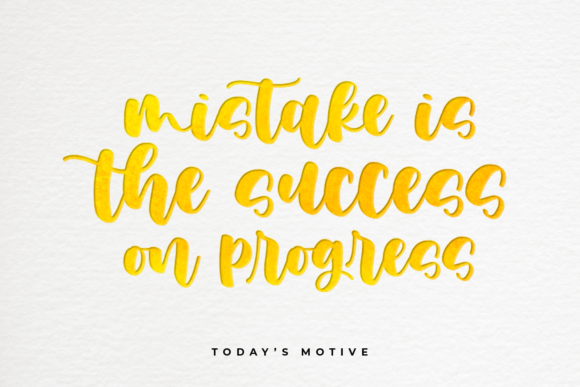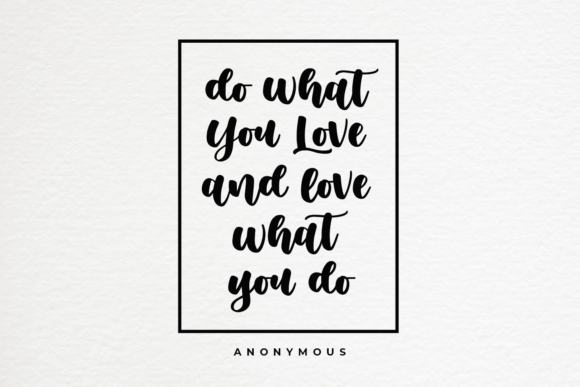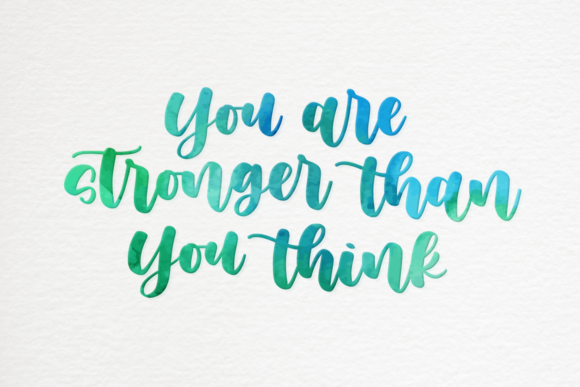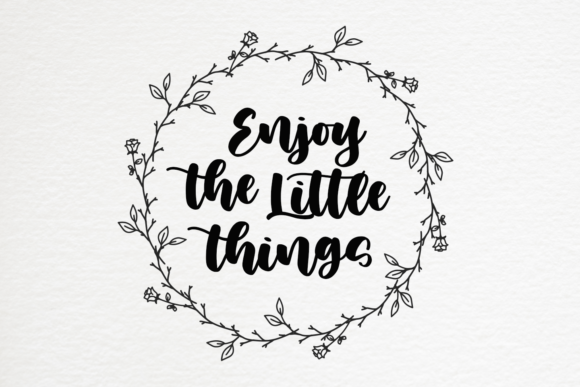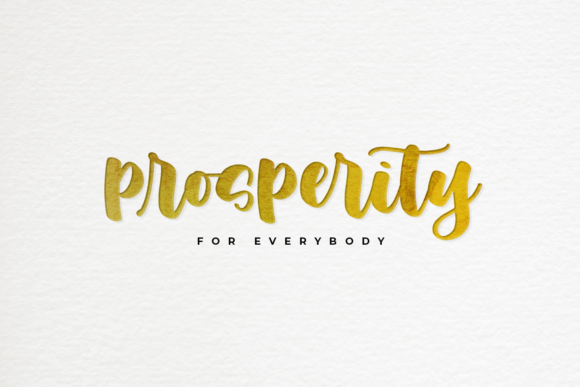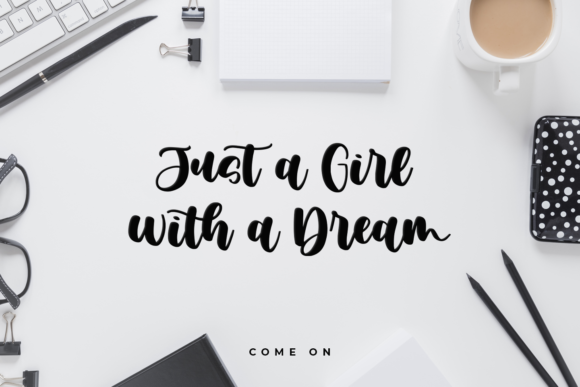
Introduction to Muthiara Font
Remember that moment when you stumbled upon the perfect design element and your creative project just came together? It’s like the missing piece of a puzzle, and everything else falls into place. For designers, this feeling is invaluable, and it’s exactly what the Muthiara Font can offer.
With its unique blend of traditional and modern elements, the Muthiara Font is a treasure trove for creative minds. Its authentic twist makes it a standout design resource that can elevate any DIY project to new heights. Whether you’re working on a digital or physical project, this high-quality font is sure to impress.
Key Features of Muthiara Font
- High-quality design resource ideal for creative projects, offering a unique and elegant aesthetic.
- Features a high-resolution design, ensuring crisp and clear display on various devices and screen sizes.
- Perfect for use in various design contexts, including logos, typography, and graphics, due to its versatility and sophistication.
Honest Review: Muthiara Font
I recently stumbled upon the Muthiara Font, and I must say it’s a great addition to any design resource collection. The font is ideal for creative projects that require a unique touch.
One of the standout features of the Muthiara Font is its ability to work seamlessly with transparent backgrounds. This makes it perfect for designs that require a clean and modern look.
Here are some of the things that work well with the Muthiara Font:
- High-quality design: The font is well-designed and looks great on screen.
- Unique style: The Muthiara Font has a distinctive style that sets it apart from other fonts.
- Limited character set: The font only includes a limited set of characters, which may not be suitable for all design projects.
- Not ideal for body text: The font is better suited for headlines and titles rather than body text.
Overall, I’m impressed with the Muthiara Font, and I think it’s a great addition to any designer’s toolkit. With its unique style and high-quality design, it’s a must-have for any creative project.
When using the Muthiara Font, consider using a transparent background to make the text stand out. This font is ideal for creative projects that require a touch of sophistication and elegance.
The Muthiara Font is commonly used for invitations, wedding stationery, and other high-end designs that require a touch of luxury. Its unique design and high quality make it an excellent resource for designers looking to add a touch of class to their work.